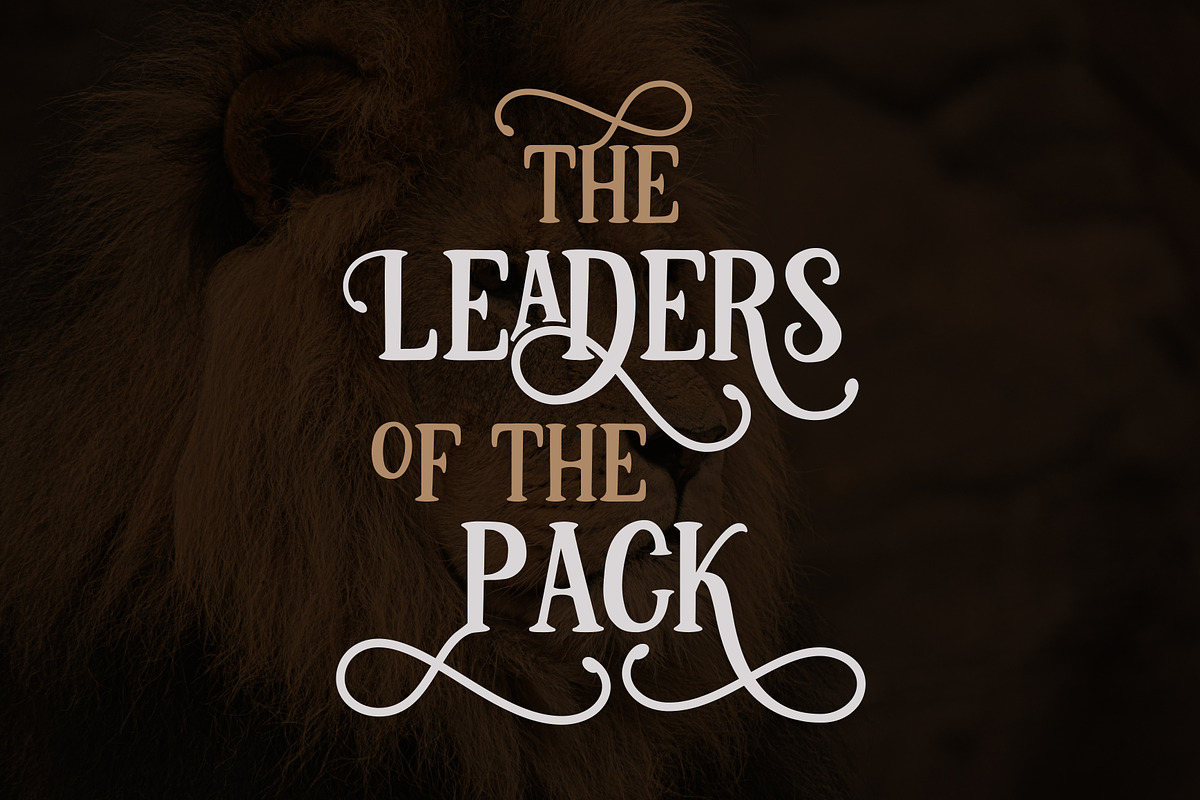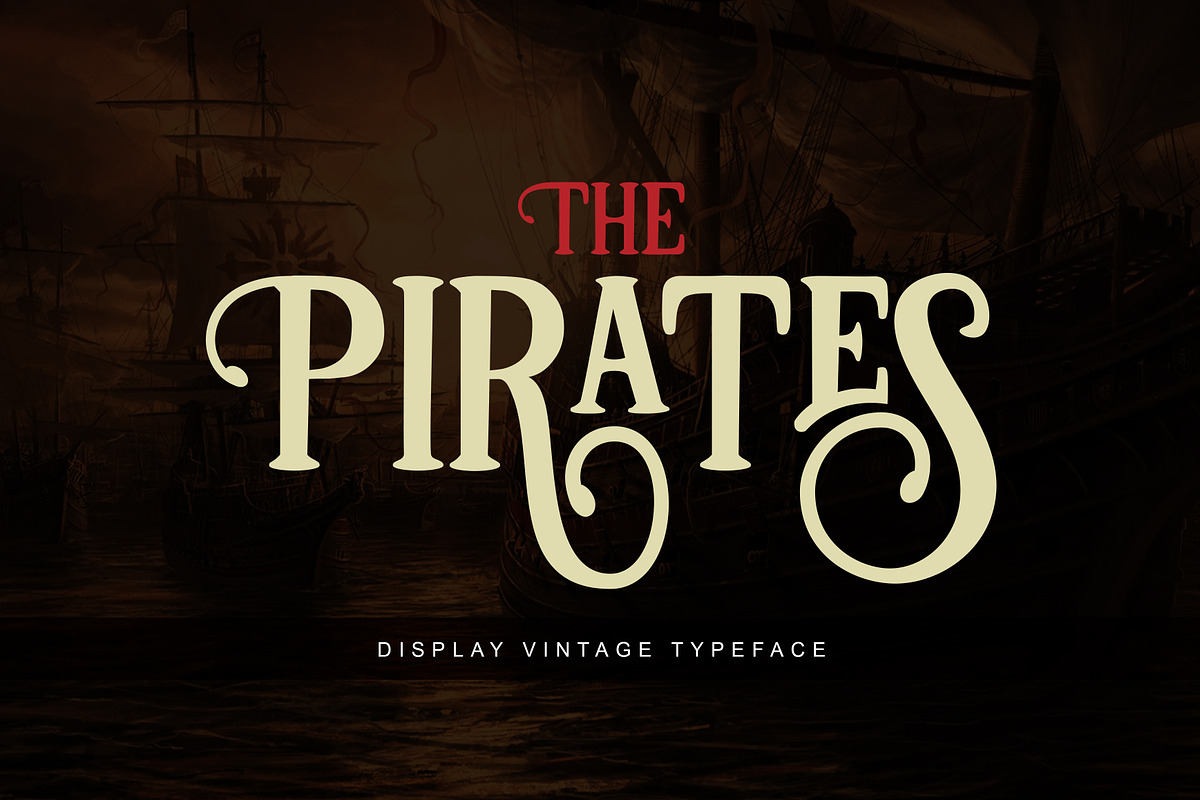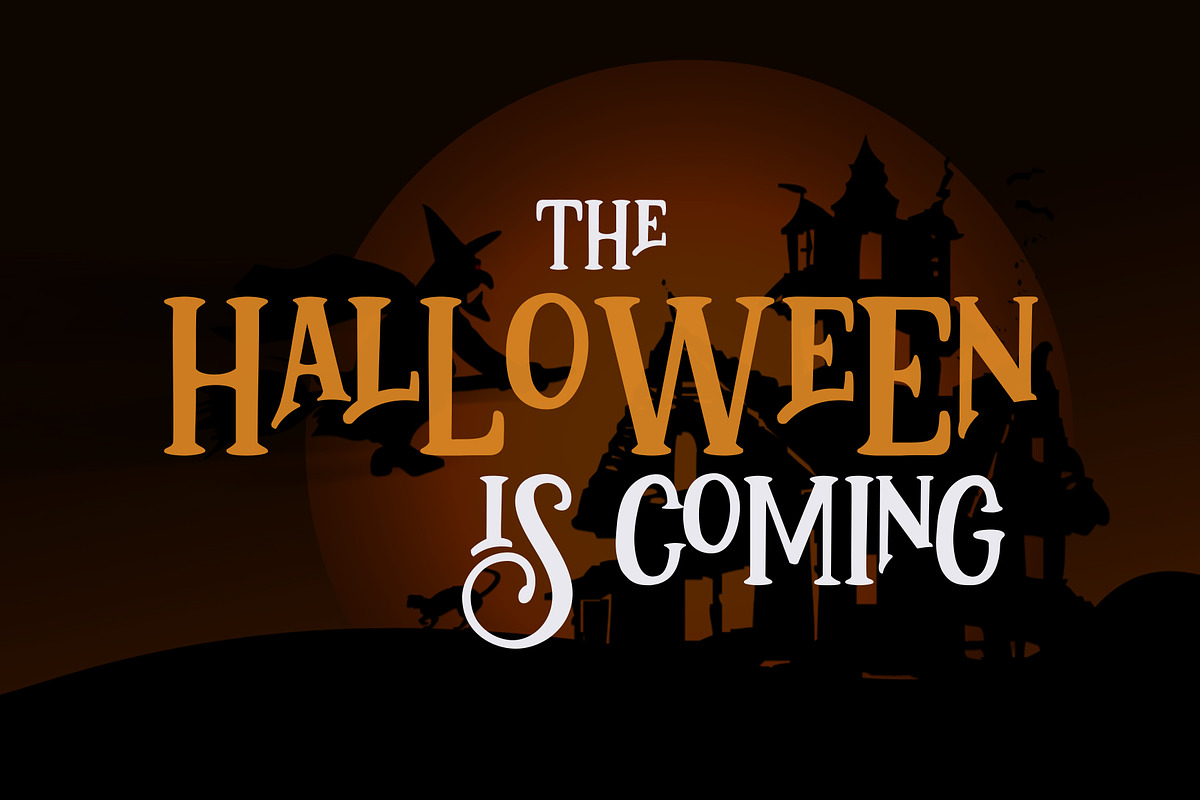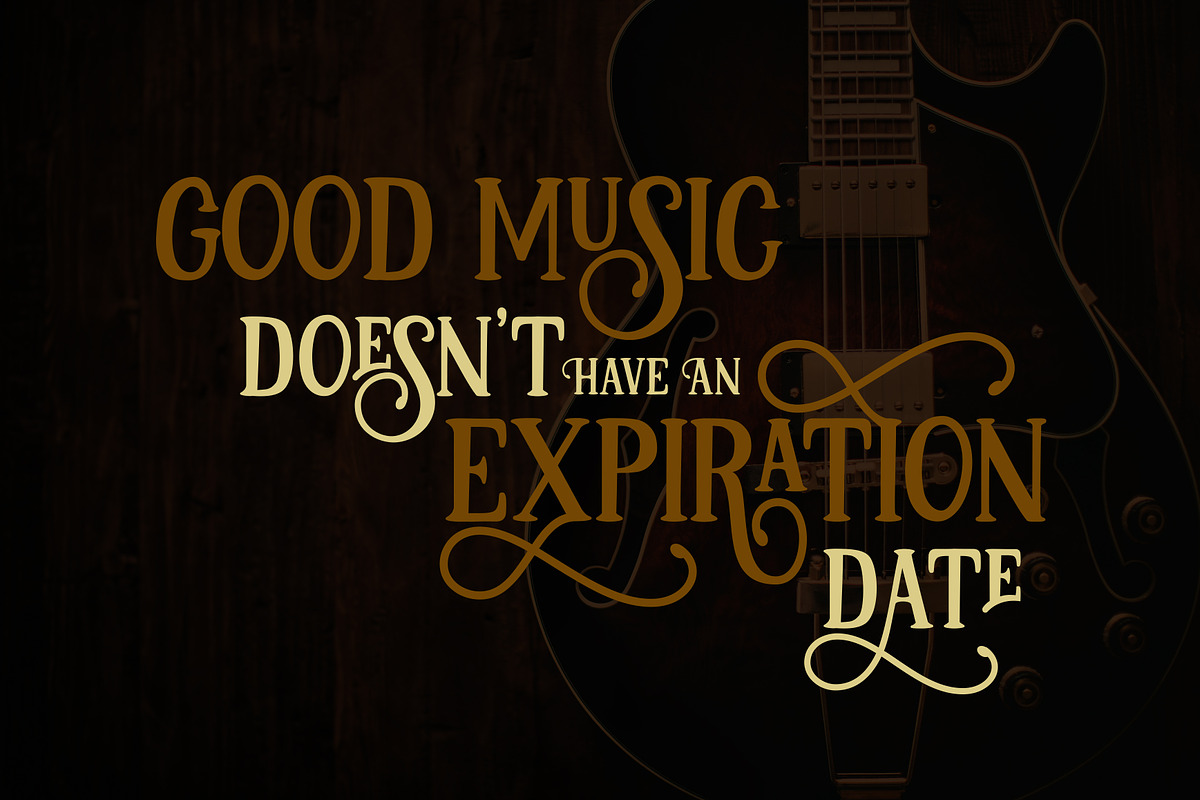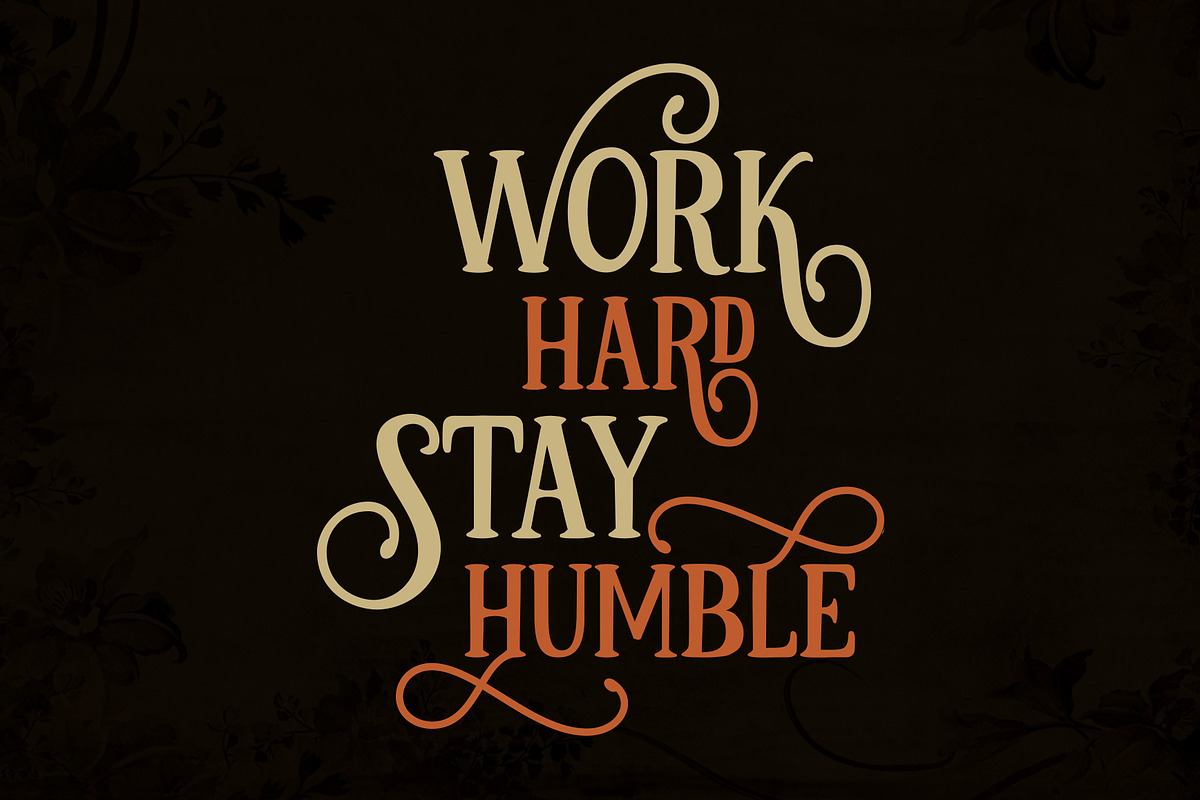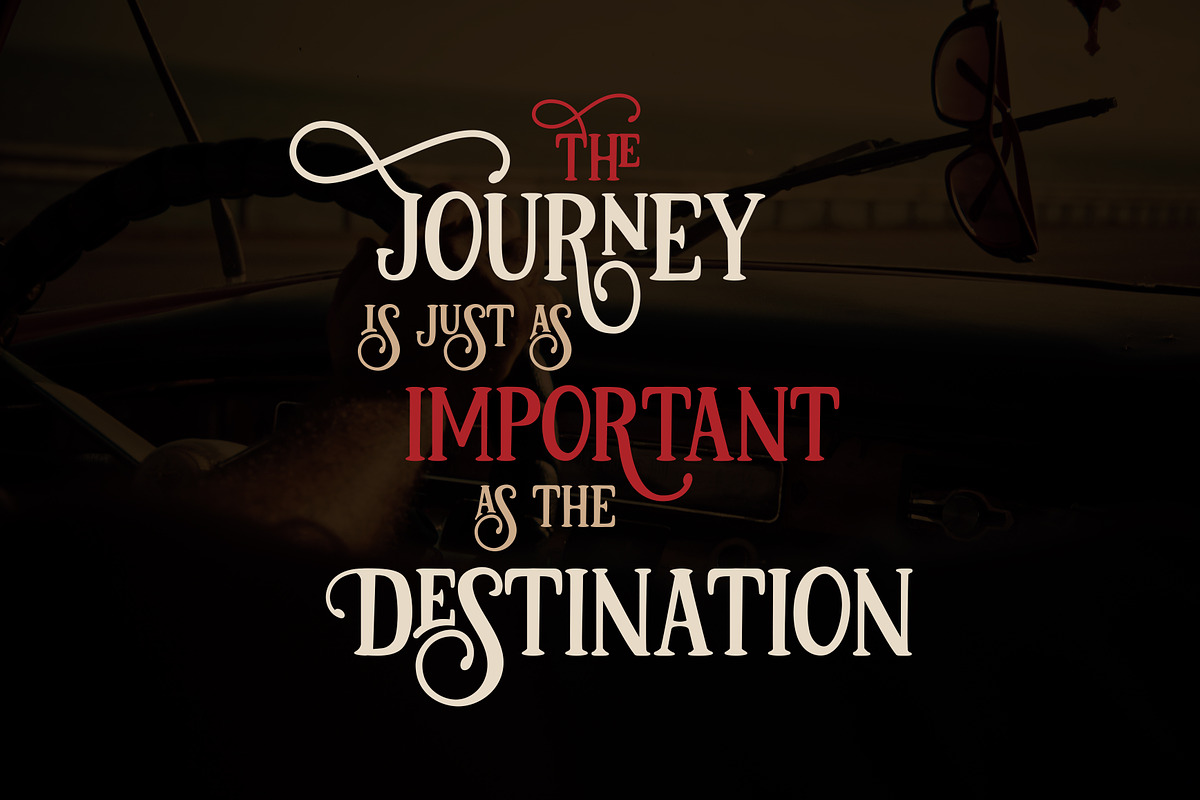
Pirates
Pirates is a display type, with style a retro, vintage, and classic , This font comes to give a classic feel for the designer to working on various projects. Although it also suitable for another purpose such as headline, insignia, badge, wedding invitation, greeting cards, etc. With a combination of highly vintage feels and the OpenType features put together on it, you can easily create an harmonic attractive message for your design.
Pirates come with 265 glyphs. The alternative characters were divided into Several Open Type features such as Swash, Stylistic Sets, Stylistic Alternates, Contextual Alternates, and ligature. The Open Type features can be accessed by using Open Type savvy programs such as Adobe Illustrator, Adobe InDesign, Adobe Photoshop Corel Draw X version, And Microsoft Word. And this has given PUA Unicode Font (specially coded fonts). so that all the alternate characters Easily can be accessed in full by a craftsman or designer
- Initial Alternates
- Contextual Alternates
- Standard ligatures
- Stylistic sets
- International Symbols Support